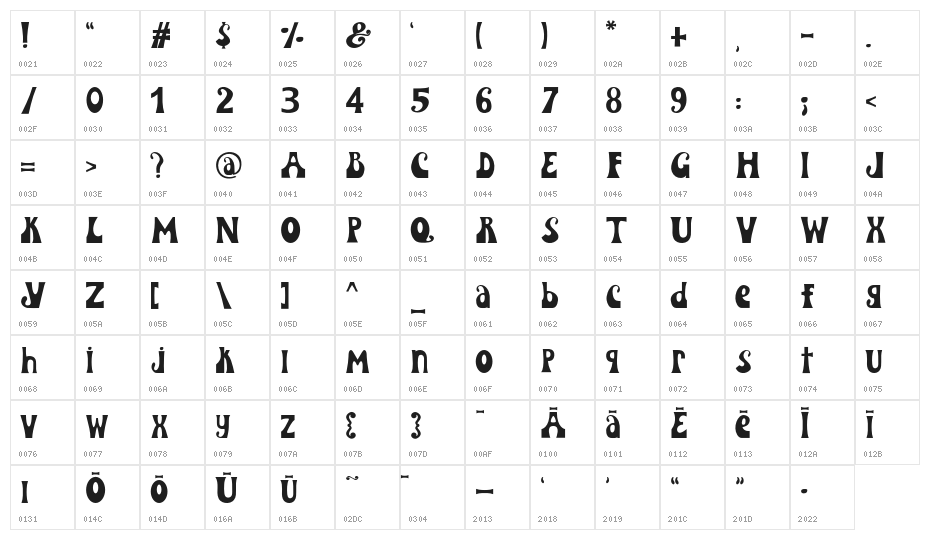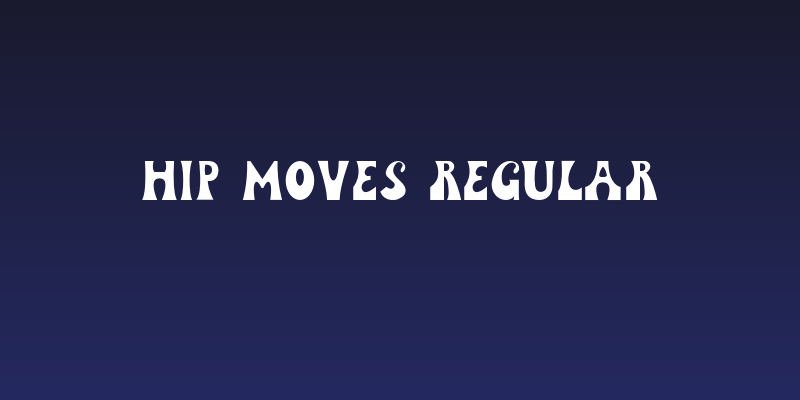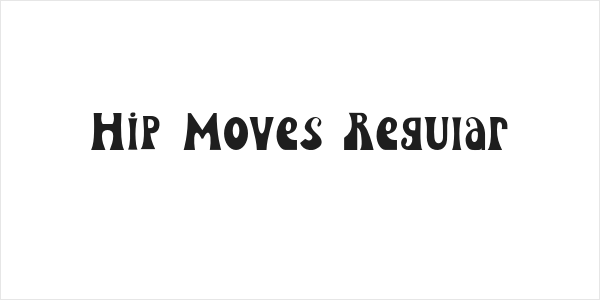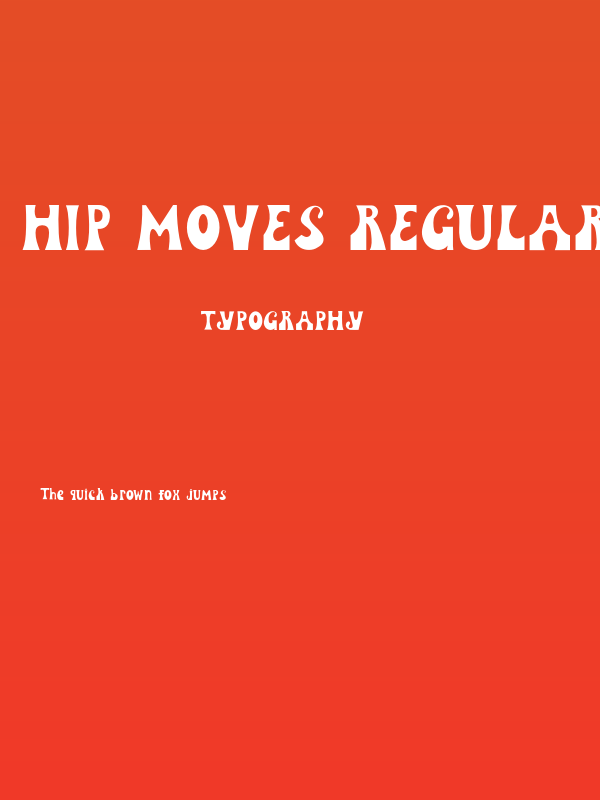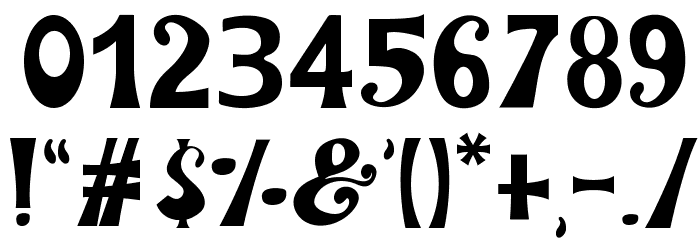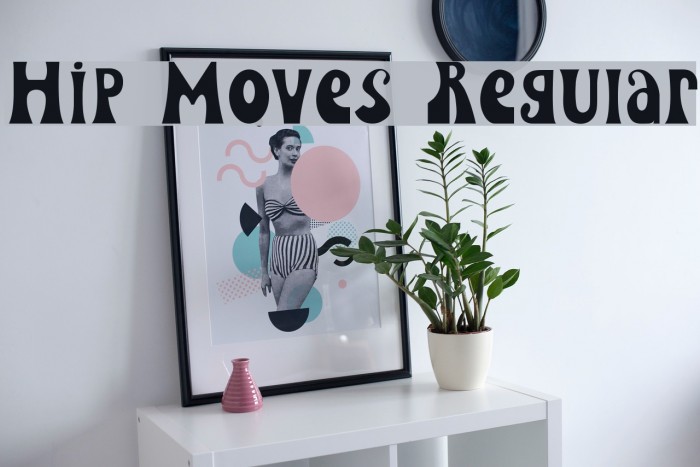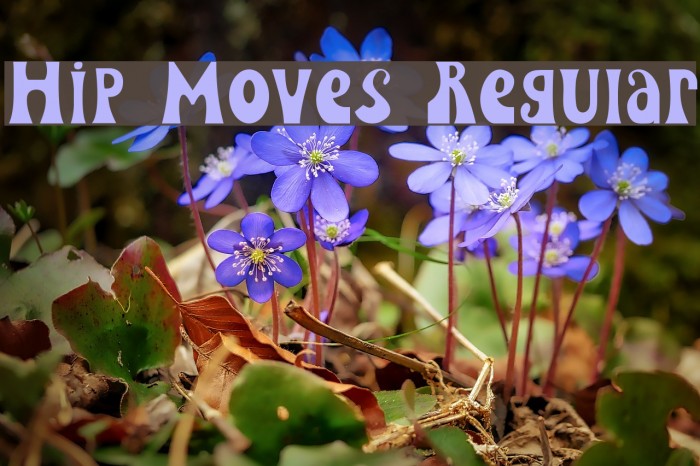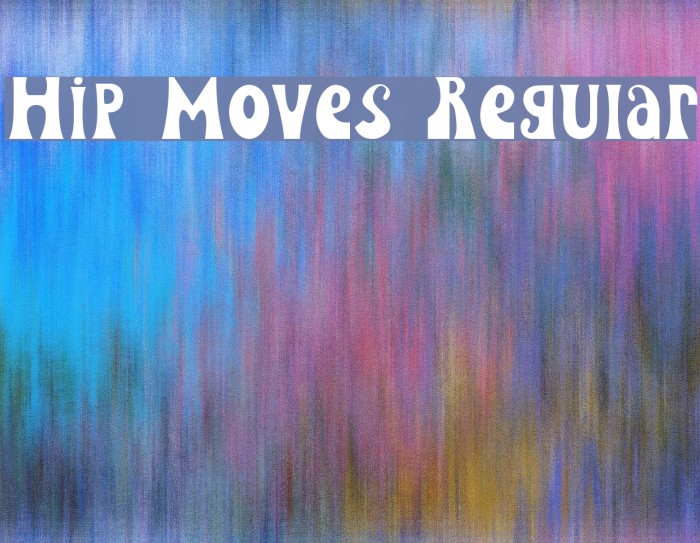
Hip Moves Regular Font
Hip Moves Regular Description
This font features a playful and bold design with a unique, whimsical flair. The characters are crafted with exaggerated curves and varying stroke widths, giving it a lively and dynamic appearance. The uppercase letters are particularly striking, with some characters incorporating unexpected twists and turns. The lowercase letters maintain the same playful style, ensuring consistency throughout the typeface. Numbers and special characters are designed to match the overall aesthetic, making this font versatile for various creative applications. Its bold presence and distinctive style make it ideal for projects that require a fun and engaging visual impact.
| Proposed Projects | Ideal for children's books, playful branding, posters, and creative advertising. |